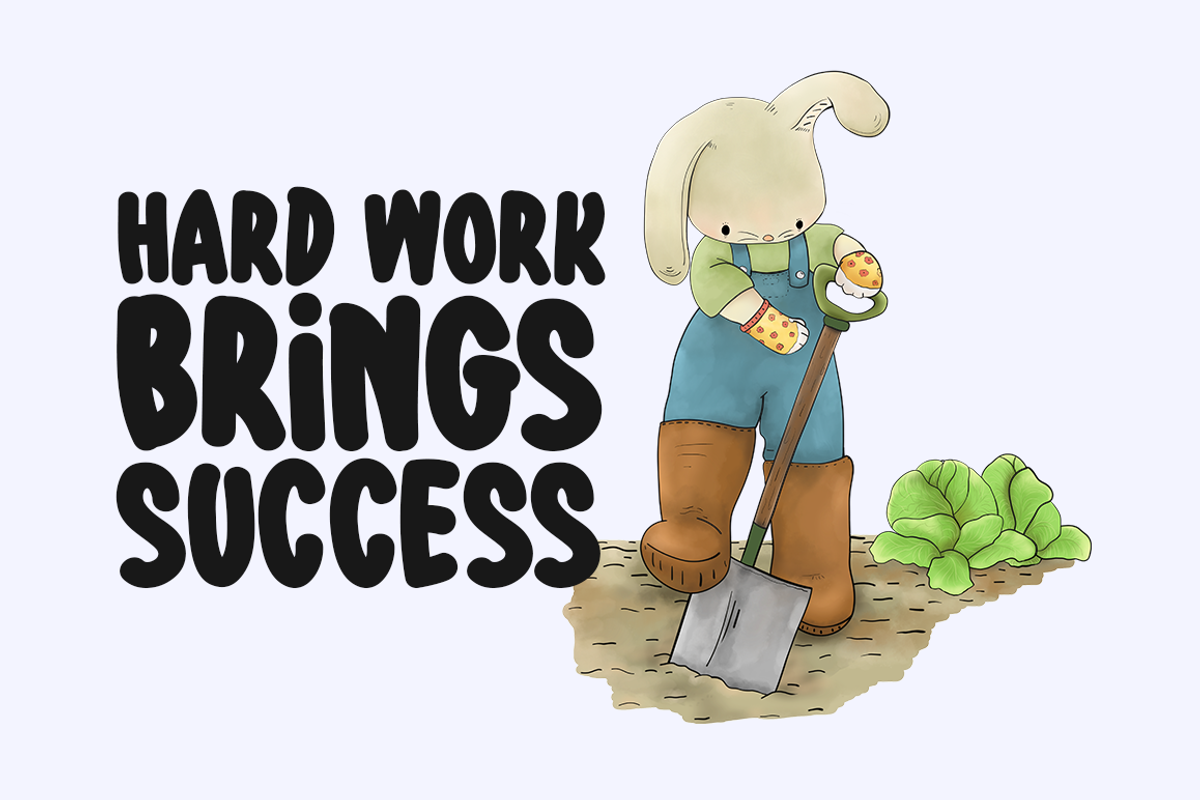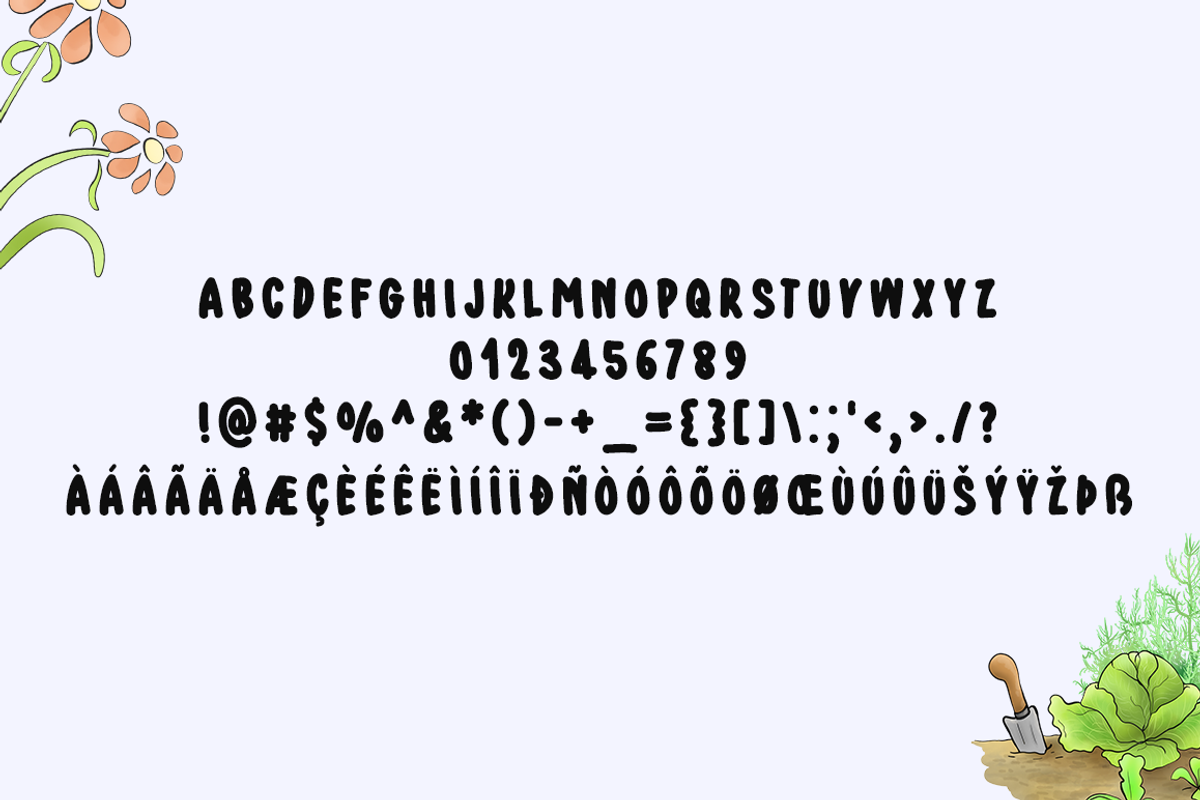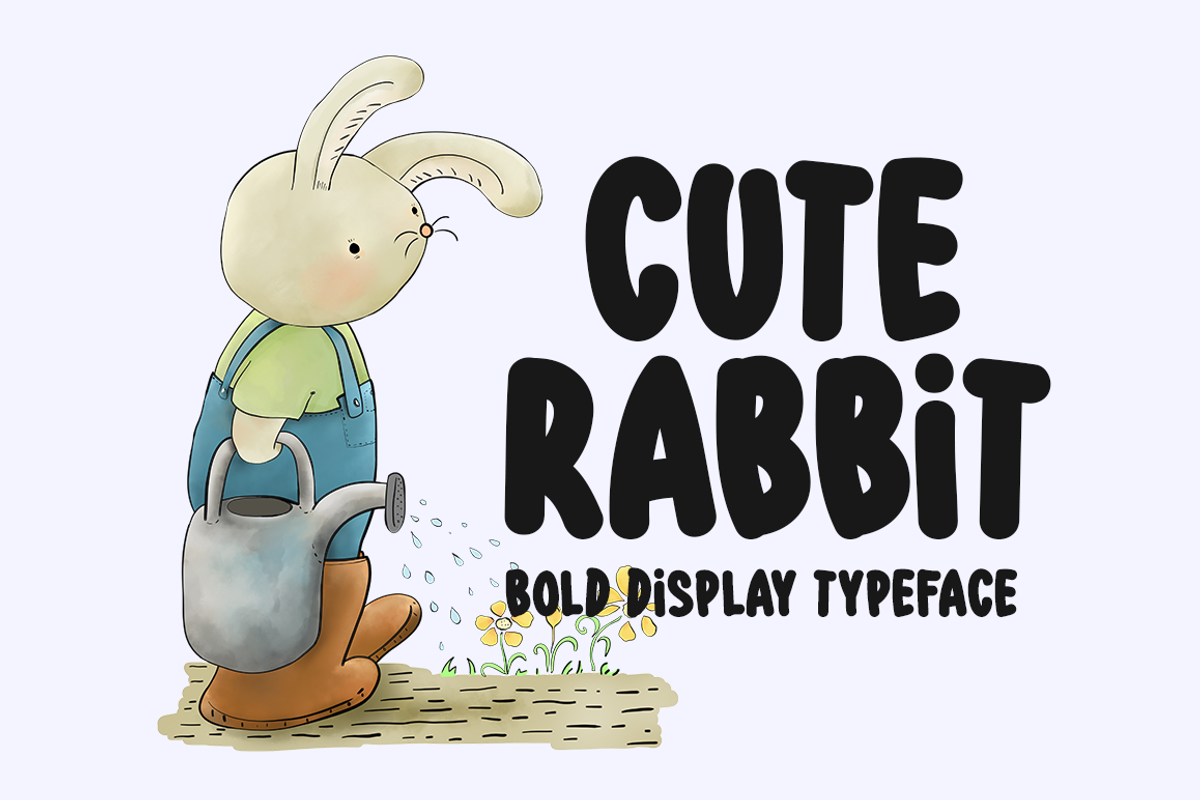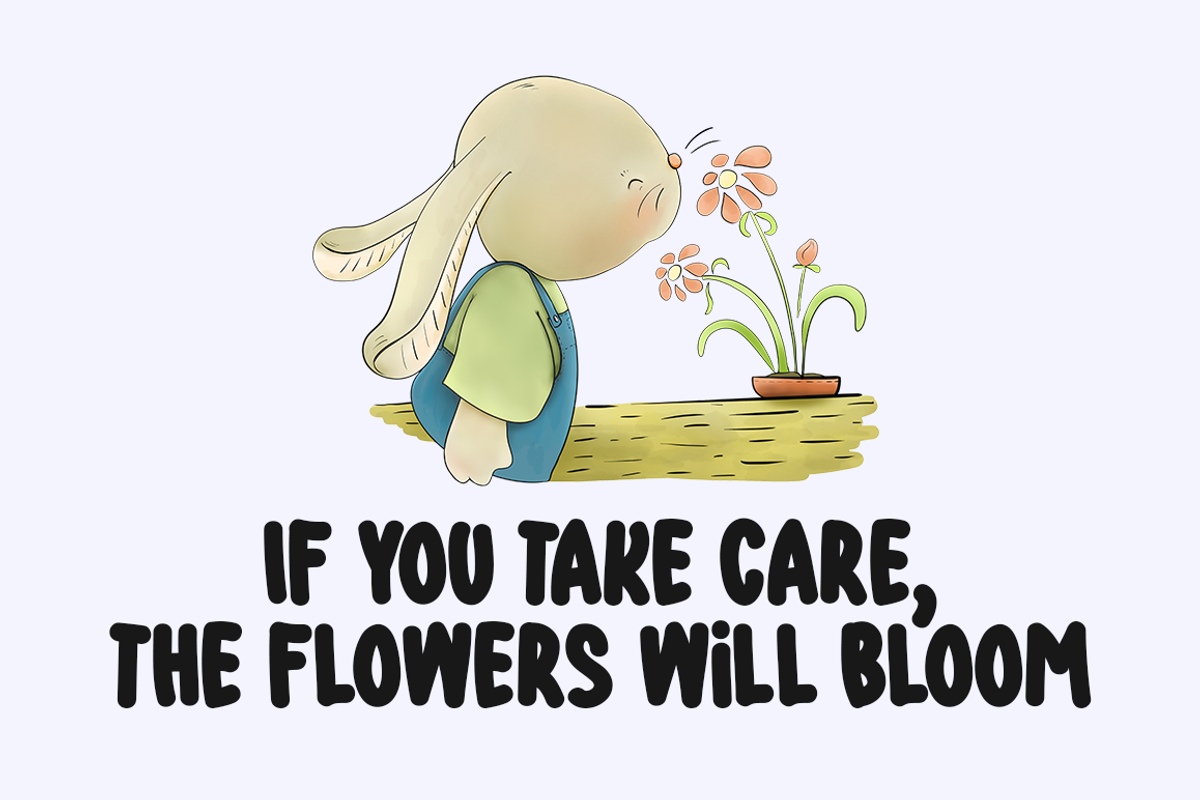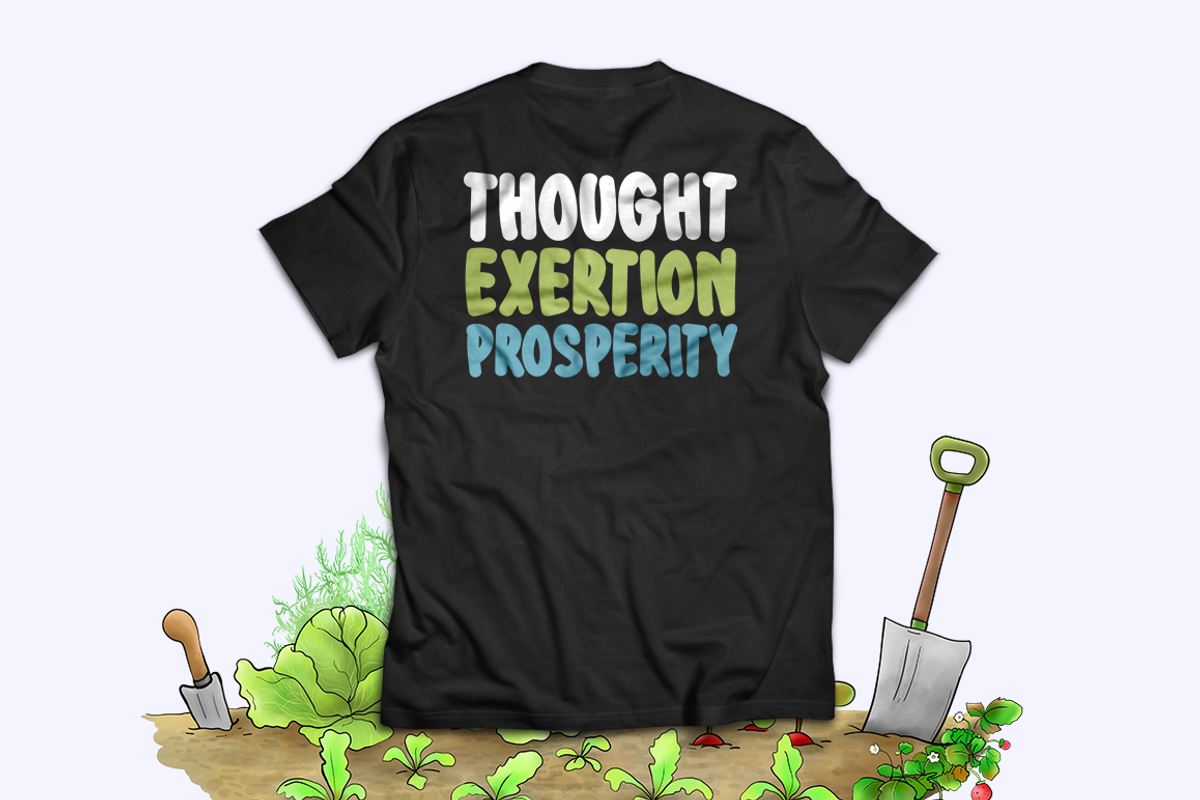
Cute Rabbit Typeface
Introducing Cute Rabbit!
Cute Rabbit is a friendly and sweet display font. It is perfectly suited for stationery, logos, t-shirt, paper, print design, website header, photo frame, flyer, music cover, poster, image slider, and much more.
Includes a range of multilingual support